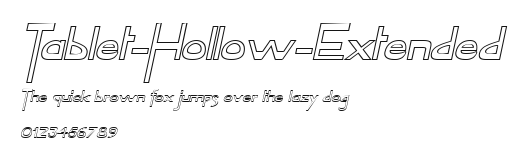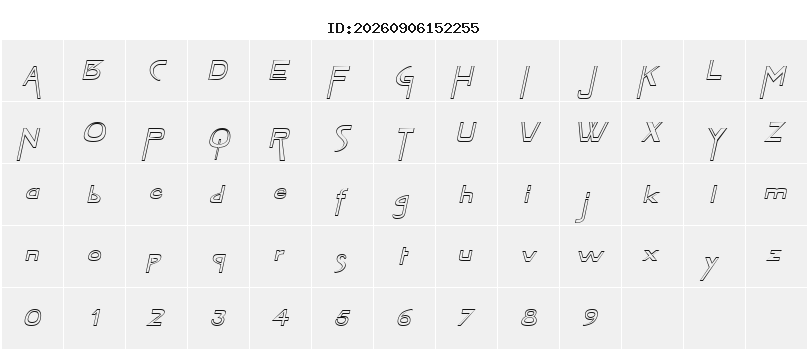
• Font Name: Tablet-Hollow-Extended
• Font ID: Macromedia Fontographer 4.1 TabletHollowExtended Italic
• Full Font Name: Tablet-Hollow-Extended Italic
• Version: Macromedia Fontographer 4.1 9/26/96
• PostScript Name: Tablet-Hollow-ExtendedItalic
• Character Count: 221
• Copyright: (c) 1996 Computer Support Corporation
About Tablet-Hollow-Extended.ttf
Tablet-Hollow-Extended.ttf is a modern, elegant sans-serif font designed for ultimate readability and visual harmony. Perfect for branding, headlines, web design, and print materials.